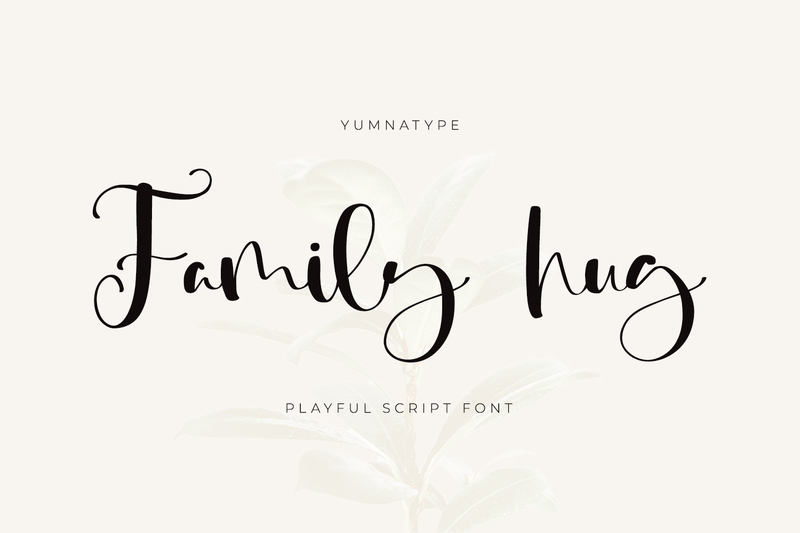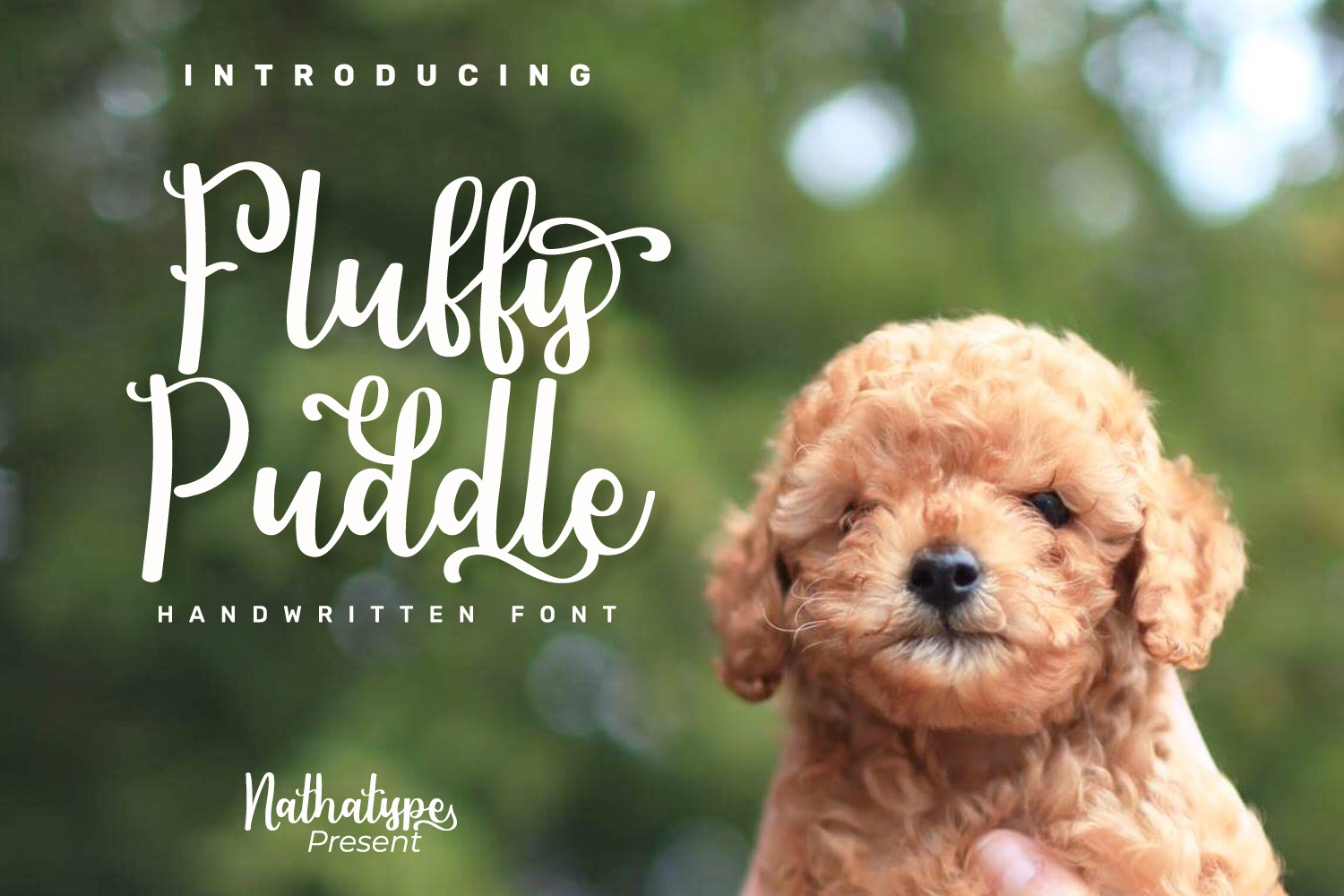
17 Beautiful Swash Fonts To Enhance Your Creative Design
Are you looking for beautiful swash fonts to make your design look more attractive, elegant, and classy? In the world of typography, these fonts are popular choices for creating romantic and creative designs.
The distinctive features of beautiful swash fonts are their decorative, curved lines that flow naturally, creating a lively and expressive visual appearance. That’s why this font style is popular for various design uses, such as logos, branding, packaging, or social media content.
If you want to add an elegant touch to your design projects, then you can try these beautiful swash fonts to inspire.
Brigtia Lovely Swash Font
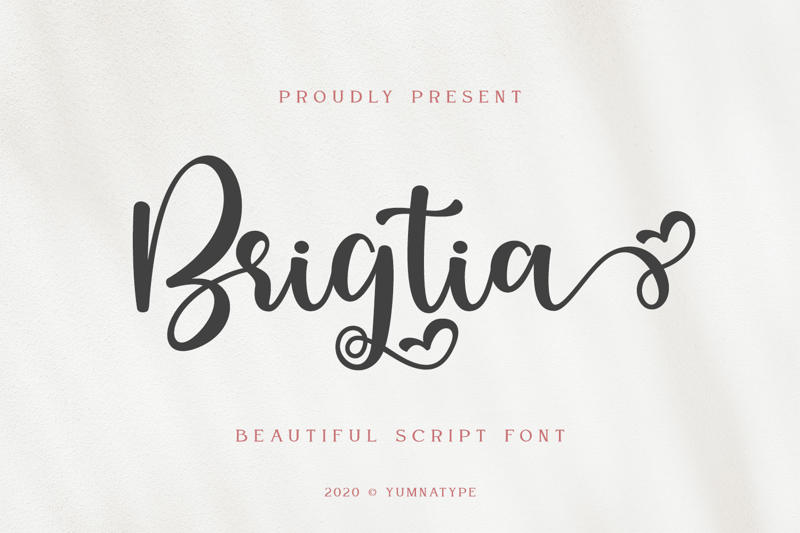
Brigtia is a script font with an elegant and romantic style. The letterform is flowing with a delicate swash touch that enhances the text composition. This font is unique, with decorative, curved ornaments and a heart accent in some of the letters. This font is complete with alternates and ligatures that give more variation to the letters. As a result, Brigtia is ideal for logos, branding, packaging, posters, and social media design.
Carlista Script
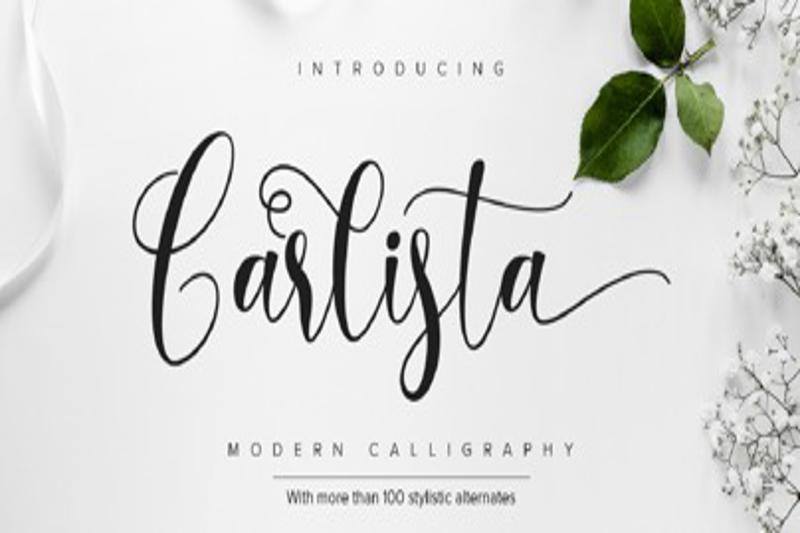
Carlista is a modern script font with a stunning calligraphic style. This font is ideal for a variety of creative purposes since it comes with ligatures that blend letters seamlessly, alternates that offer variation, and curved line swashes that enhance its appearance. This font’s flexibility makes it one of the most beautiful swash fonts to design logos, posters, and more.
Candyland
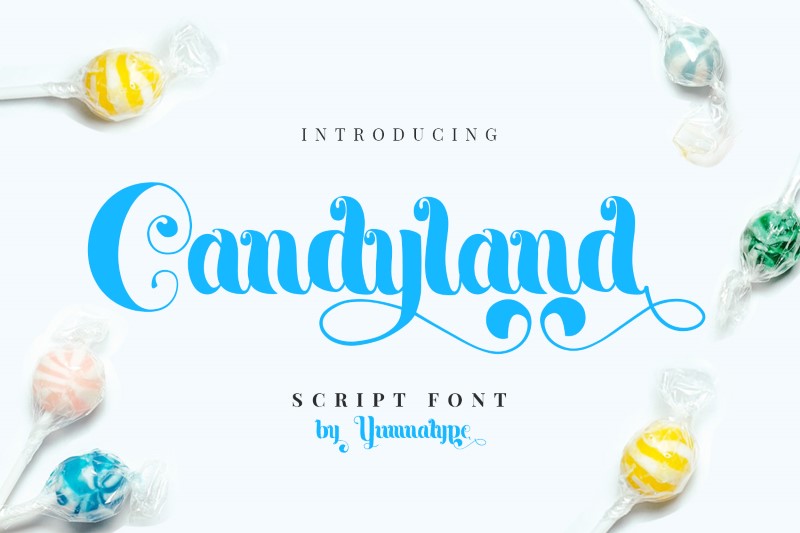
The next recommendation is Candyland, an elegant script font designed with smooth detail and appealing decorative accents. The letterform is flowing with beautiful swashes that enhance the text layout. Candyland is one of the most beautiful swash fonts that works perfectly for design needs, including headings, logos, invitations, packaging, and website branding.
Canoliga
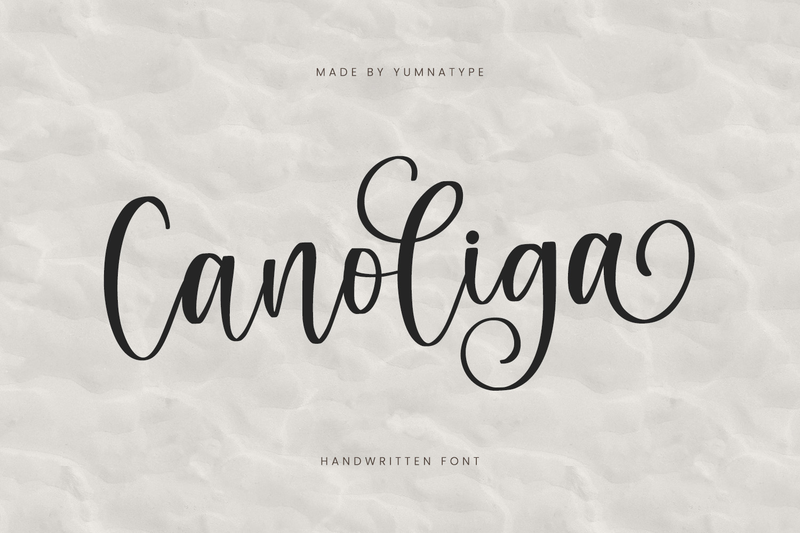
As one of the most beautiful swash fonts with an elegant handwriting style, Canoliga showcases stunning, enchanting, and naturally connected letterforms. This font is perfect for many design uses like logos, branding, invitations, posters, and social media content. Each character is designed with lightweight and balanced contrast. As a result, the letter composition looks smooth and proportional. The delicate curved lines add a sense of gracefulness and class that enhances the overall text appearance.
Angelia—Lovely Script
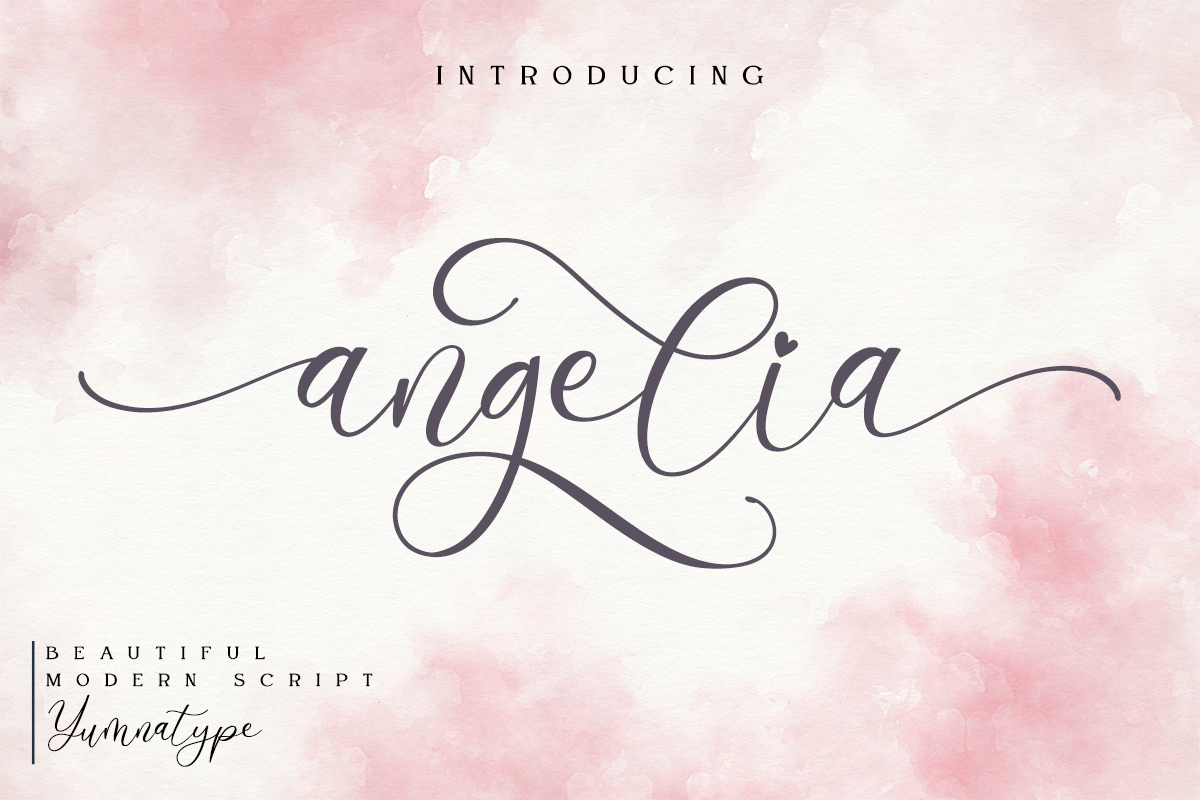
“Beautiful” and “modern,” two words that describe this elegant script font called Angelia. This font presents a beautiful, smooth, and stylish look, making it perfect for various design needs. Each letter is complete with decorative swashes, like in the letter “i,” where there is a small loop that shapes a heart on the top of the letter stem. These swashes add a graceful and artistic feel to the design.
Angelin Heart
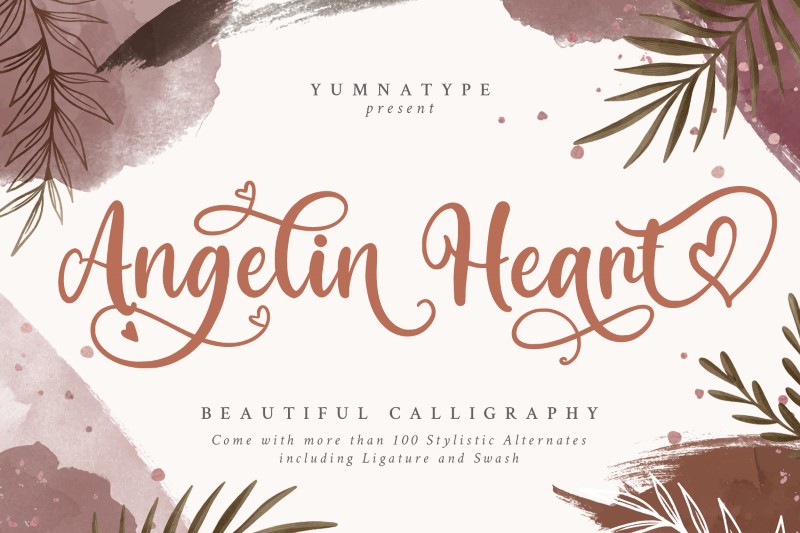
Angelin Heart has a smooth script character with beautiful heart-shaped swashes that add sweet, romantic, and elegant nuance in each of its letters. This font is perfect for use in posting social media ads, quotations, T-shirt designs, and more. Besides that, Angelin Heart is complete with alternates, standard ligatures, and stylistic sets, adding creative and professional flexibility in the typography.
Barelyn Script
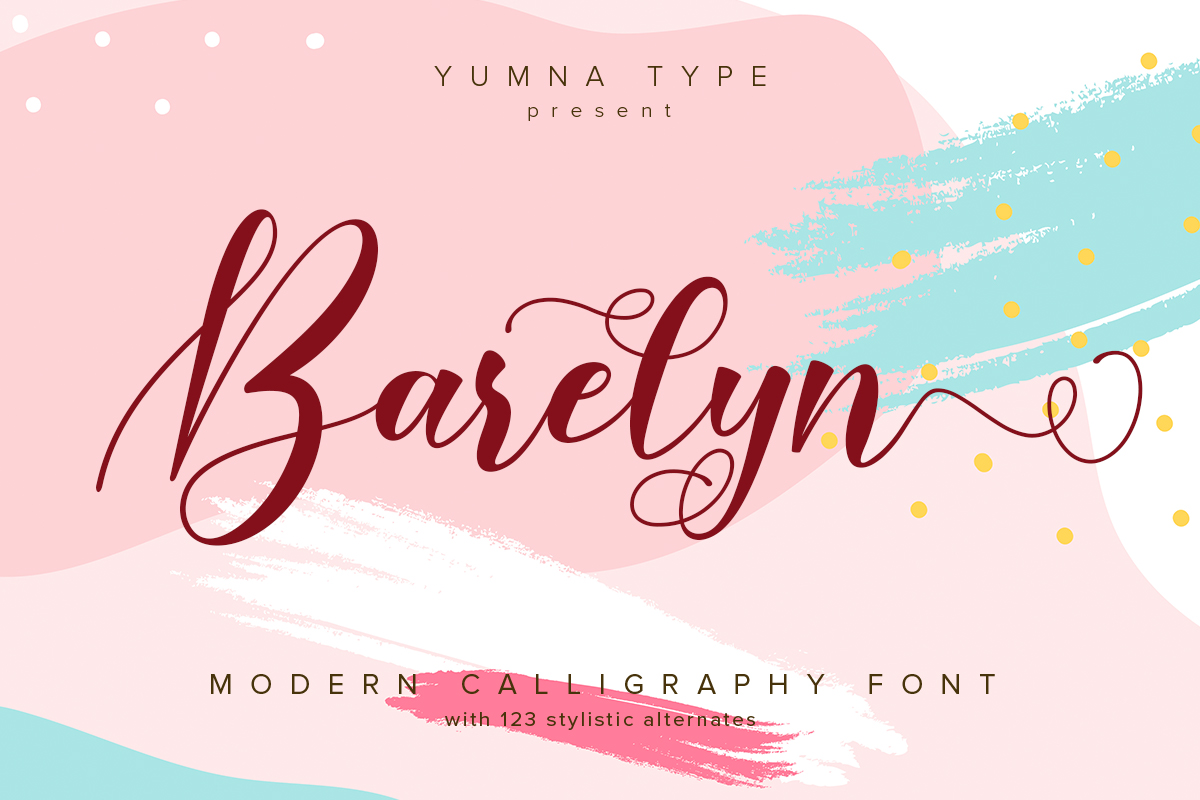
Barelyn is a lovely, modern script typeface suitable for a wide range of designs, including weddings, branding, logotypes, and quotes. Its graceful swashes, decorative loops, and delicate lines create a fluid, creative feel. Additionally, the extended swash that finishes each word with a subtle loop adds an especially elegant and striking touch.
Crofelo Delight
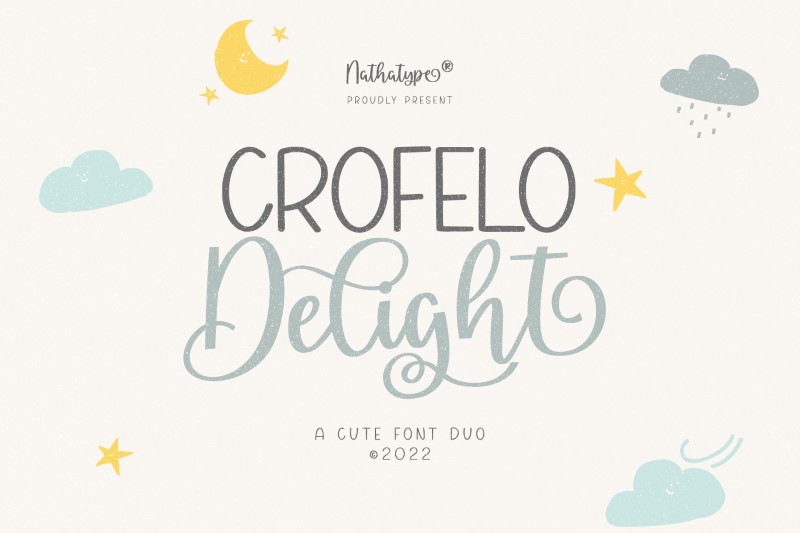
Looking whimsical and appealing, Crofelo Delight is a font duo that combines a cute, soft script and a neat, charming display font. The script font comes with graceful swashes, adding a decorative touch that makes text look expressive and dynamic. This font showcases a harmonious typography composition that is easy to combine and use in various sweet designs like dessert or bakery branding, greeting cards, and social media content with cute and playful themes.